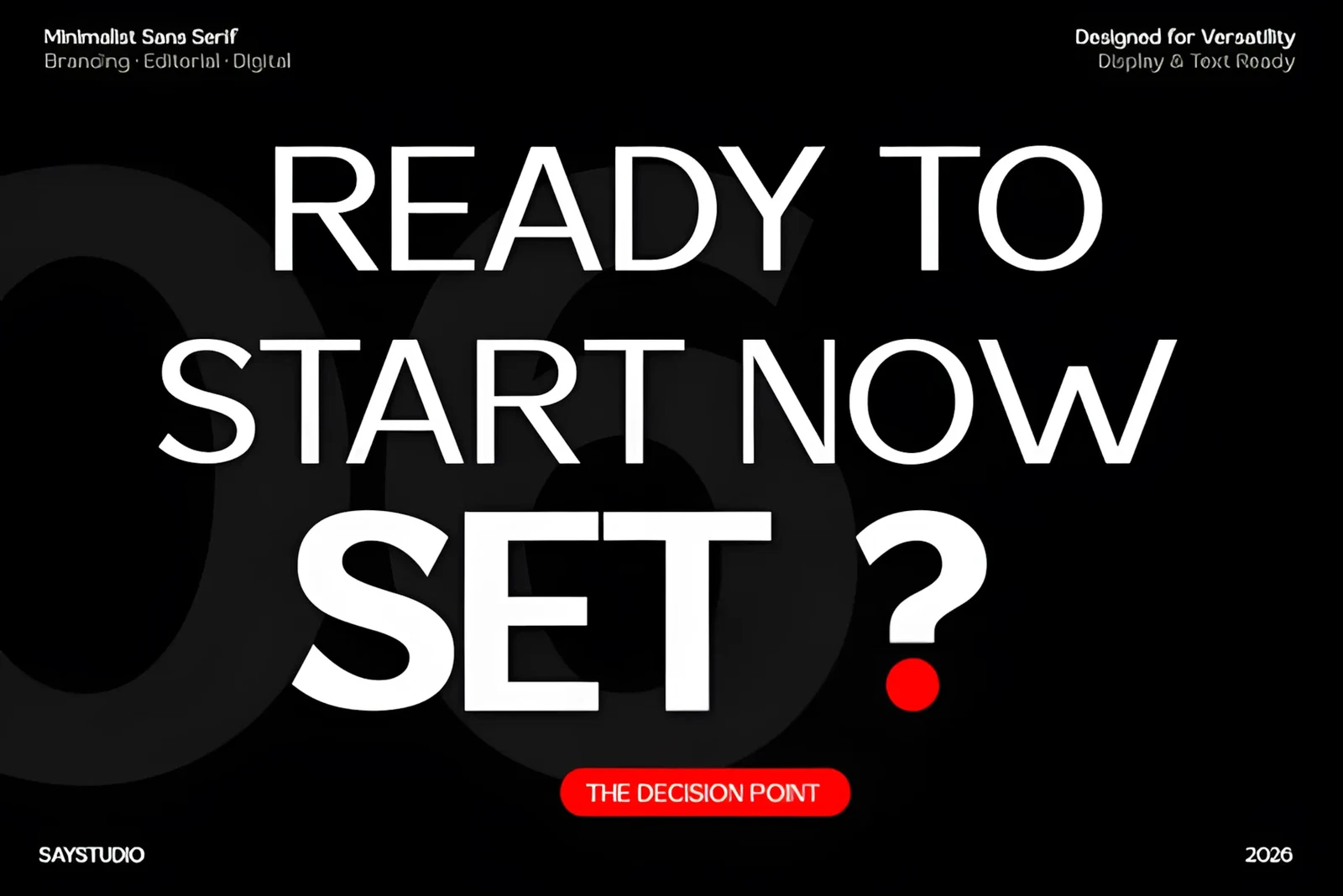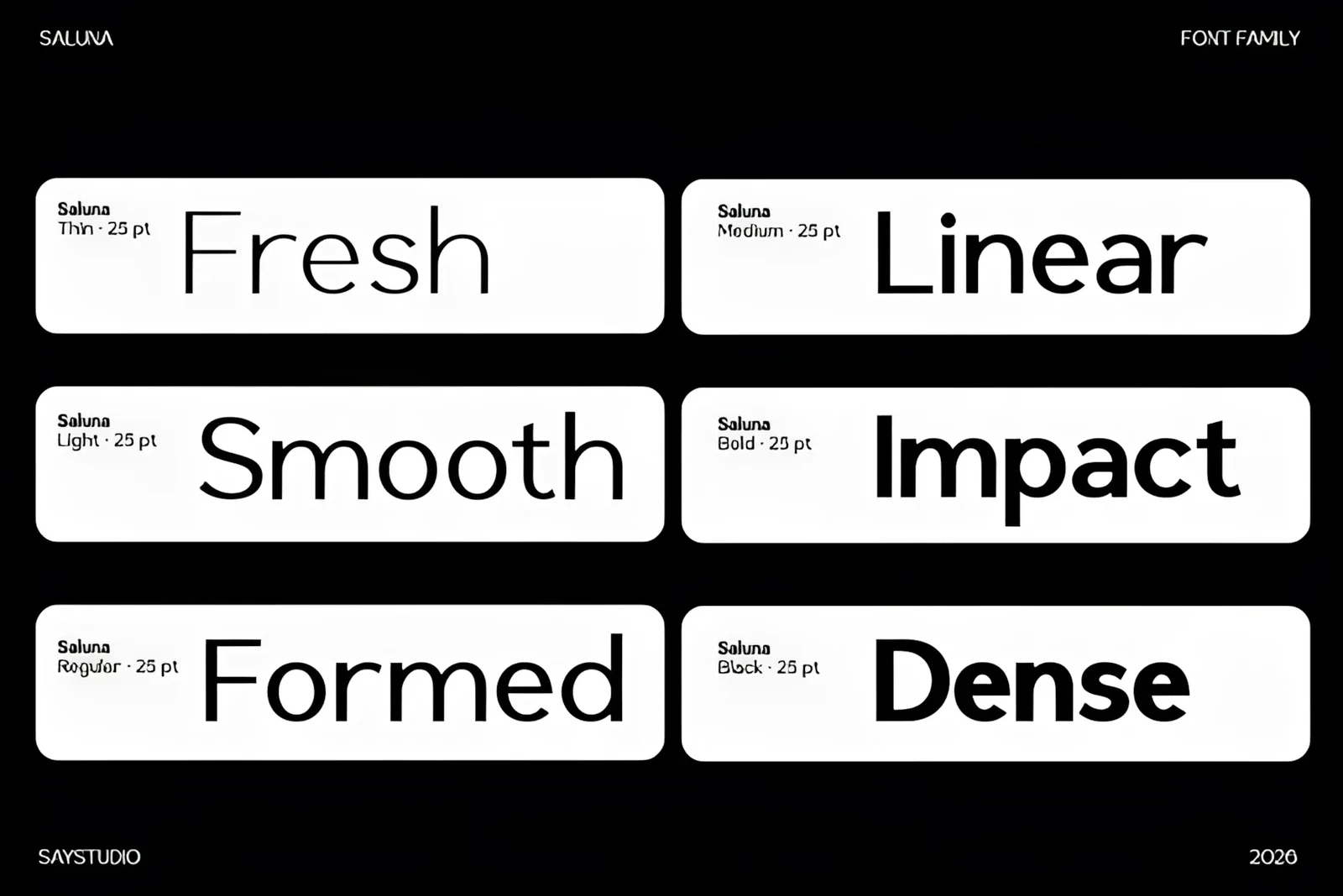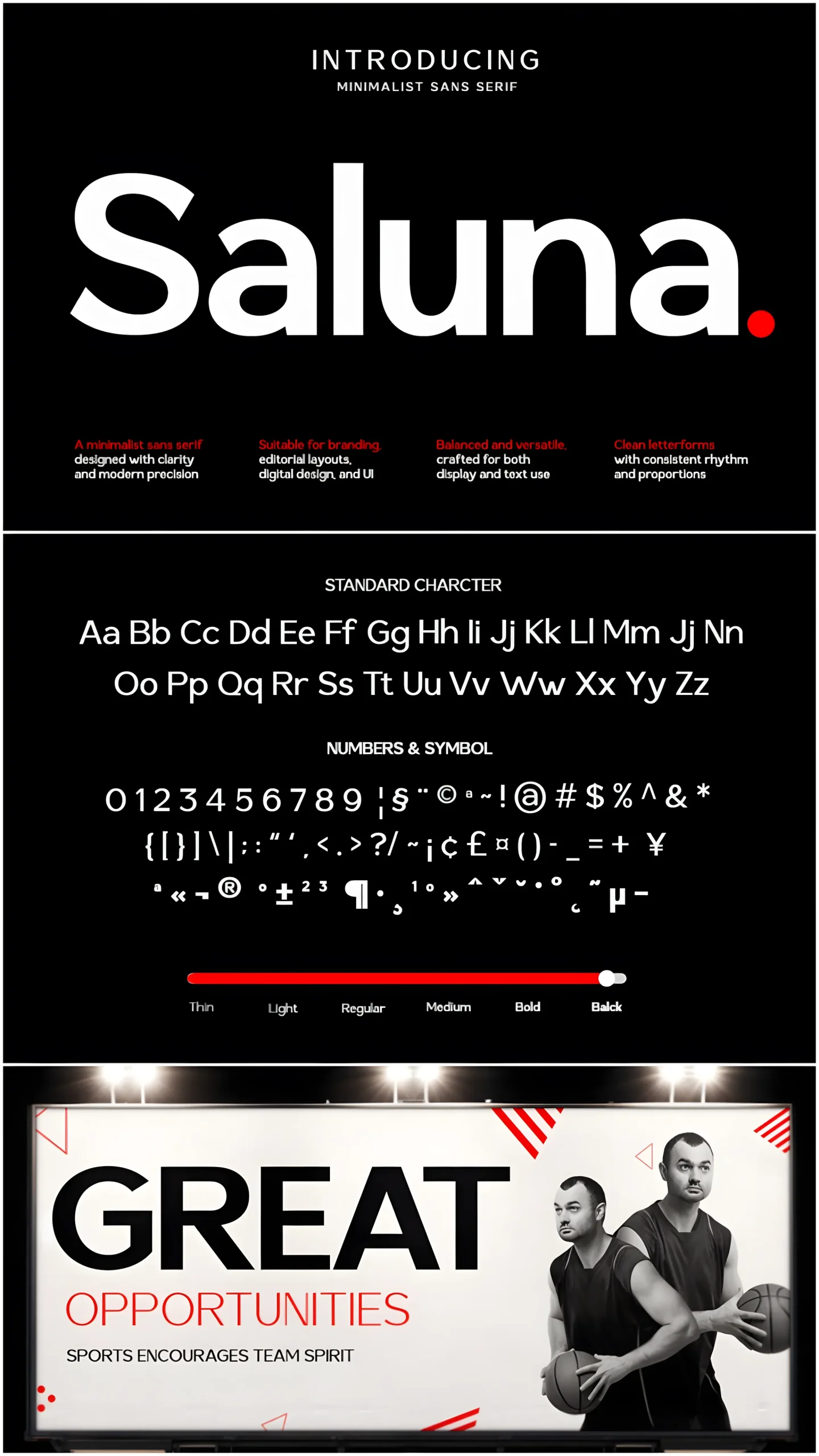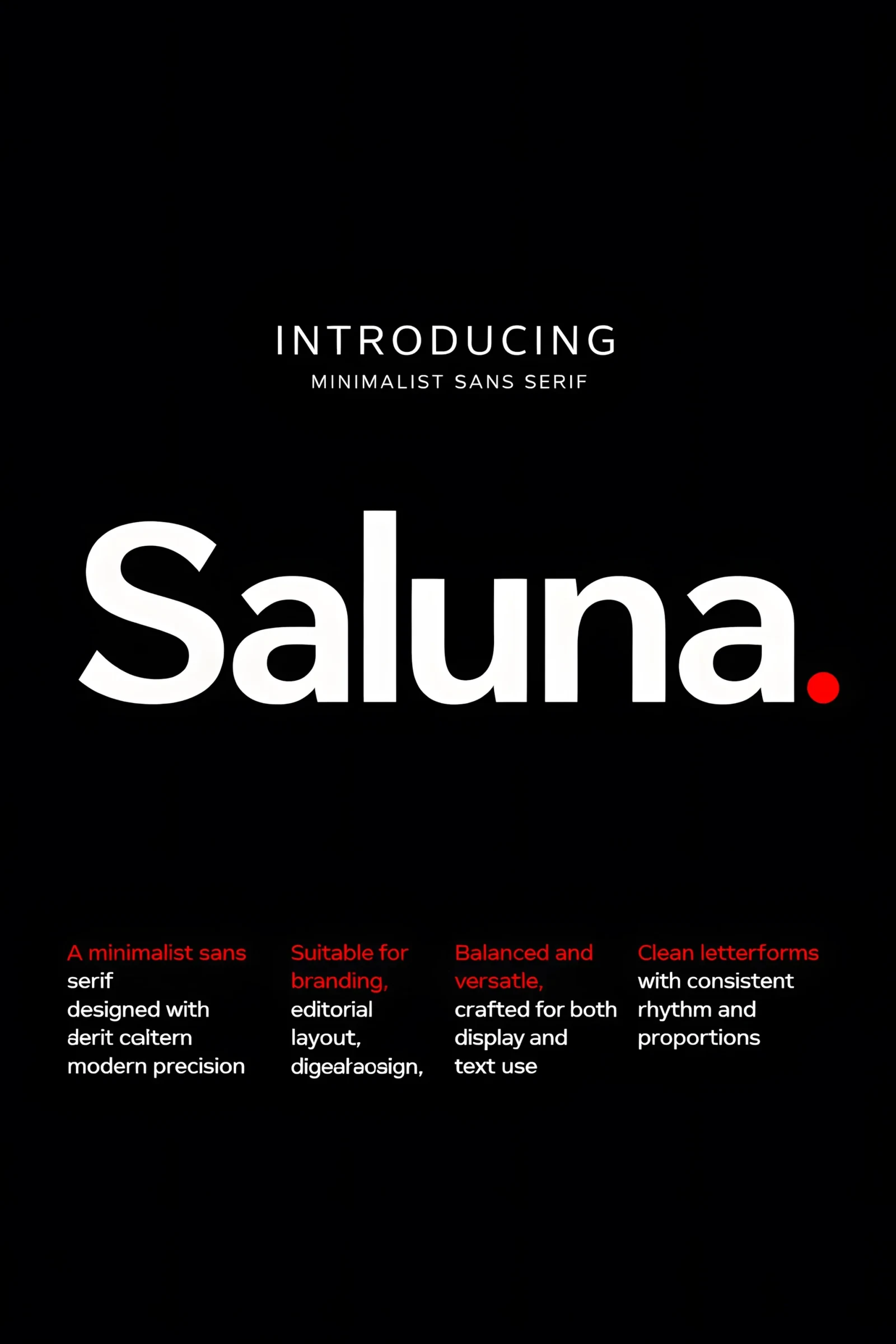
Some fonts are created to impress at first glance, others are built to work every day. Saluna Font belongs firmly to the second category. It is a clean, modern sans-serif typeface designed for consistency, clarity, and long-term professional use across digital and commercial projects.
Saluna doesn’t try to dominate a layout. Instead, it supports content, structure, and branding with calm confidence. This makes it especially valuable for designers who build systems rather than one-off visuals.
Designed for Reliability, Not Trends
Saluna is a minimalist sans-serif with precise geometry and carefully balanced proportions. Every letterform feels intentional, which results in a typeface that remains readable and neutral in almost any context.
Rather than chasing decorative trends, the font focuses on:
- clean construction
- even spacing
- consistent rhythm
This approach makes Saluna suitable for long-term use, where visual stability matters more than novelty.
How Saluna Behaves in Real Layouts
In practice, Saluna feels predictable in the best possible way. Headlines look structured without feeling heavy, while body text remains comfortable to read at smaller sizes.
The font performs equally well in:
- large display text
- medium-sized headings
- compact interface labels
Because the spacing and proportions are consistent, layouts feel organized even before additional styling is applied.
A Typeface Built for Modern Branding
Saluna is especially effective in branding systems that need to scale across platforms. It works naturally for:
- logos and wordmarks
- corporate identity systems
- brand guidelines
- marketing materials
Its neutral tone allows colors, imagery, and layout choices to define personality, while typography maintains coherence and professionalism.
Editorial and Content-Focused Use
For editorial design, Saluna offers clarity without distraction. Articles, reports, presentations, and digital publications benefit from its clean structure.
Text blocks feel:
- open and readable
- evenly paced
- visually calm
This makes the font suitable for long-form reading as well as structured informational content.
UI, Web, and Digital Products
Saluna was designed with digital environments in mind. It performs reliably on screens and adapts easily to responsive layouts.
Common use cases include:
- websites and landing pages
- dashboards and user interfaces
- SaaS platforms
- mobile and desktop applications
Because of its neutral and adaptable style, Saluna remains useful across multiple industries and projects instead of being tied to a single niche.
Why Neutral Sans-Serif Fonts Endure
Neutral sans-serif fonts continue to dominate modern design because they prioritize usability over decoration. Saluna fits squarely into this category, offering a professional look that doesn’t age quickly.
Its strength lies in consistency. Designers can rely on it to support content without drawing attention away from the message.
Who Saluna Font Is Best For
Saluna is especially well suited for:
- graphic designers
- branding and identity specialists
- UI and UX designers
- agencies and studios
- anyone building clean, scalable design systems
It works equally well for individual creators and large professional teams.
Final Perspective
Saluna Font is not about standing out loudly — it’s about working reliably. Its clean geometry, balanced proportions, and neutral tone make it a dependable foundation for modern design systems.
For designers who value clarity, structure, and long-term usability, Saluna offers a professional sans-serif solution that stays relevant as projects evolve.